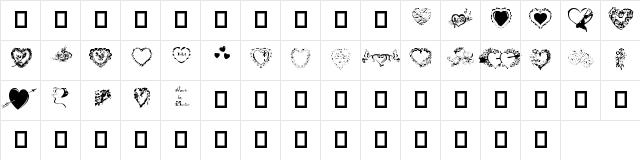
Hearts by Darrian Semi-expanded Free Font
Hearts by Darrian Semi-expanded
Style: Semi-expanded
Design Context for Hearts by Darrian
Hearts by Darrian is a composed and adaptable typeface that performs quietly and consistently across a wide range of design contexts.